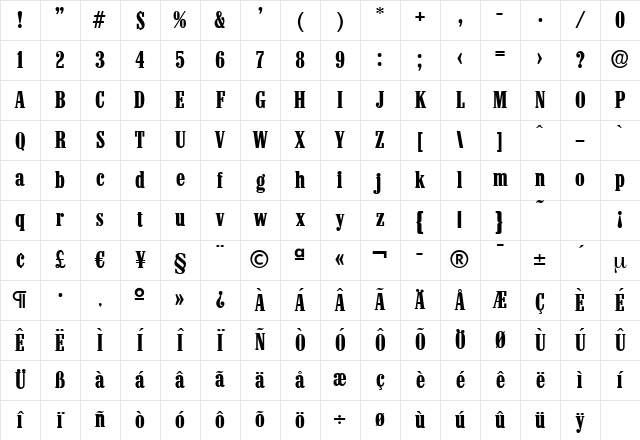
RobertBecker Bold
RobertBecker Family
RobertBecker Bold
Design Context for RobertBecker
RobertBecker is a composed and adaptable typeface that performs quietly and consistently across a wide range of design contexts. Its bold stroke weight gives it real presence on the page.